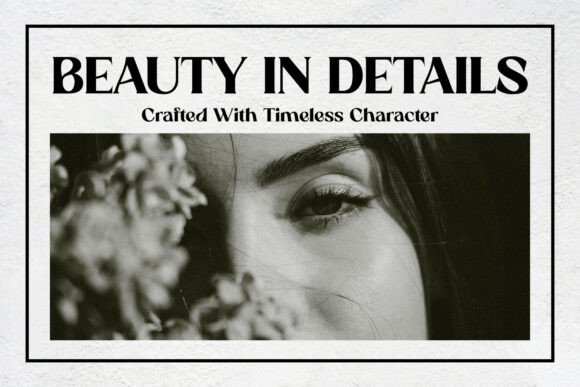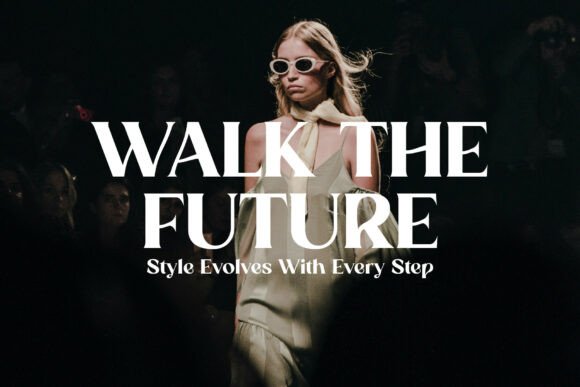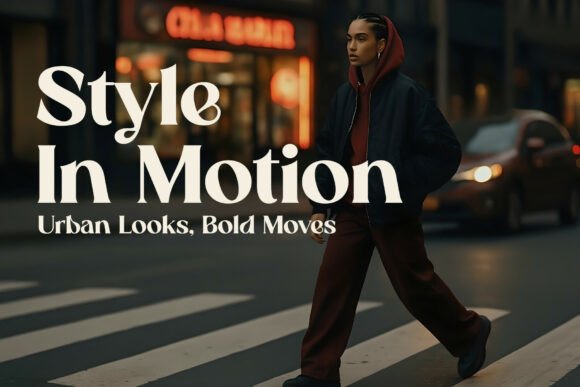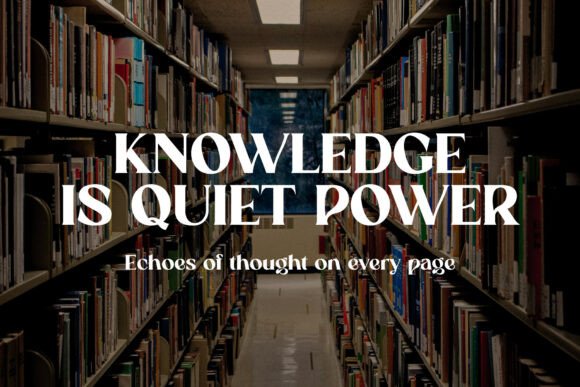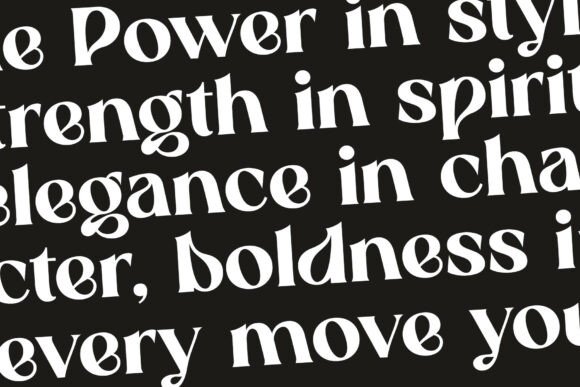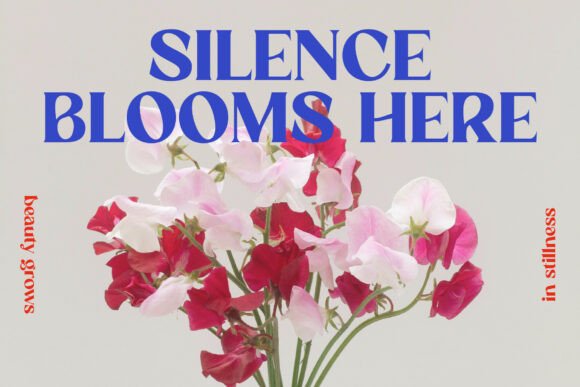
Introducing Gravida Font: Elevate Your Designs with Timeless Elegance
Are you looking for a font that exudes confidence, style, and sophistication? Look no further than Gravida, a bold serif display typeface that is sure to elevate your designs to new heights. With its high-contrast strokes and refined curves, Gravida strikes the perfect balance between modern elegance and timeless charm, making it an ideal choice for designers and crafters alike.
The Perfect Balance of Style and Sophistication
Gravida’s unique design is characterized by its bold yet elegant letterforms, which make it perfect for creating standout headlines, stylish advertising, and eye-catching designs. The font’s high-contrast strokes and refined curves give it a sense of luxury and authority, making it ideal for editorial design, fashion branding, packaging, posters, magazines, book covers, and logos.
One of the best things about Gravida is its versatility. The font comes with uppercase and lowercase letters, numerals, punctuation, multilingual support, and OpenType features, giving you the flexibility to explore limitless design possibilities. Whether you’re designing for print or digital, Gravida effortlessly enhances projects with a sense of authority and luxury.
Gravida is the perfect tool for designers who want to combine artistic flair with professional appeal. Its striking personality makes it an excellent choice for designers who want to create visually stunning designs that demand attention. With Gravida, you can bring timeless sophistication to your designs, making it perfect for a wide range of applications, including:
- Editorial design: Gravida’s bold and elegant letterforms make it perfect for magazine and book covers, as well as editorial spreads.
- Fashion branding: Gravida’s luxurious and sophisticated feel makes it ideal for fashion brands looking to create a high-end image.
- Packaging: Gravida’s bold and eye-catching design makes it perfect for product packaging, especially for high-end or luxury brands.
- Posters: Gravida’s striking personality makes it perfect for creating eye-catching posters that demand attention.
- Logos: Gravida’s bold and elegant letterforms make it an excellent choice for logos that need to convey a sense of authority and luxury.
Key Features of Gravida Font
So, what makes Gravida font so special? Here are some of its key features:
- Bold serif display typeface
- High-contrast strokes and refined curves
- Uppercase and lowercase letters
- Numerals, punctuation, and multilingual support
- OpenType features
- Perfect for editorial design, fashion branding, packaging, posters, magazines, book covers, and logos
In conclusion, Gravida font is a bold serif display typeface that radiates confidence, style, and sophistication. With its high-contrast strokes and refined curves, Gravida strikes the perfect balance between modern elegance and timeless charm. Its versatility, striking personality, and endless design possibilities make it the perfect tool for designers and crafters looking to elevate their designs to new heights. Whether you’re designing for print or digital, Gravida is sure to bring timeless sophistication to your projects.